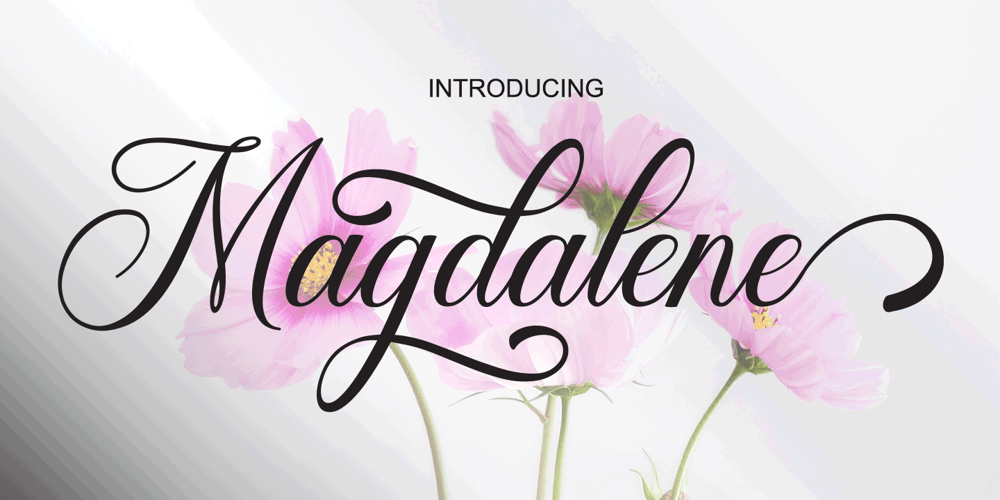
Magdalena Font Family was designed by Marwah and published by BBA Key. Magdalena contains 1 styles and family package options. Magdalena Script New fresh & modern style with handmade calligraphy, decorative characters and dancing lineage! So wonderful are invitations like greeting cards, branding material, business cards, quotes, posters, and more !!If you do not have programs that support OpenType features like Adobe Illustrator and CorelDraw X Versions, you can access all alternative flying machines using Font Book (Mac) or Character Map (Windows).If you have any questions, please feel free to contact me via email. Thanks and good luck ๐